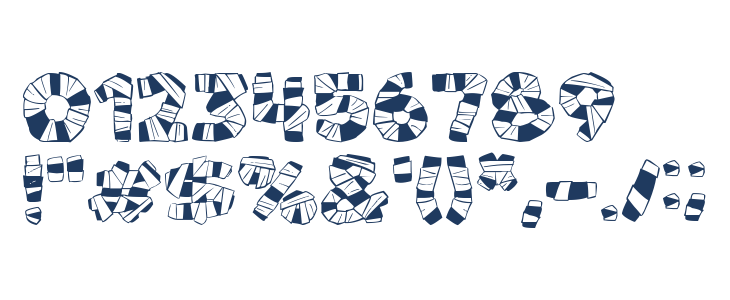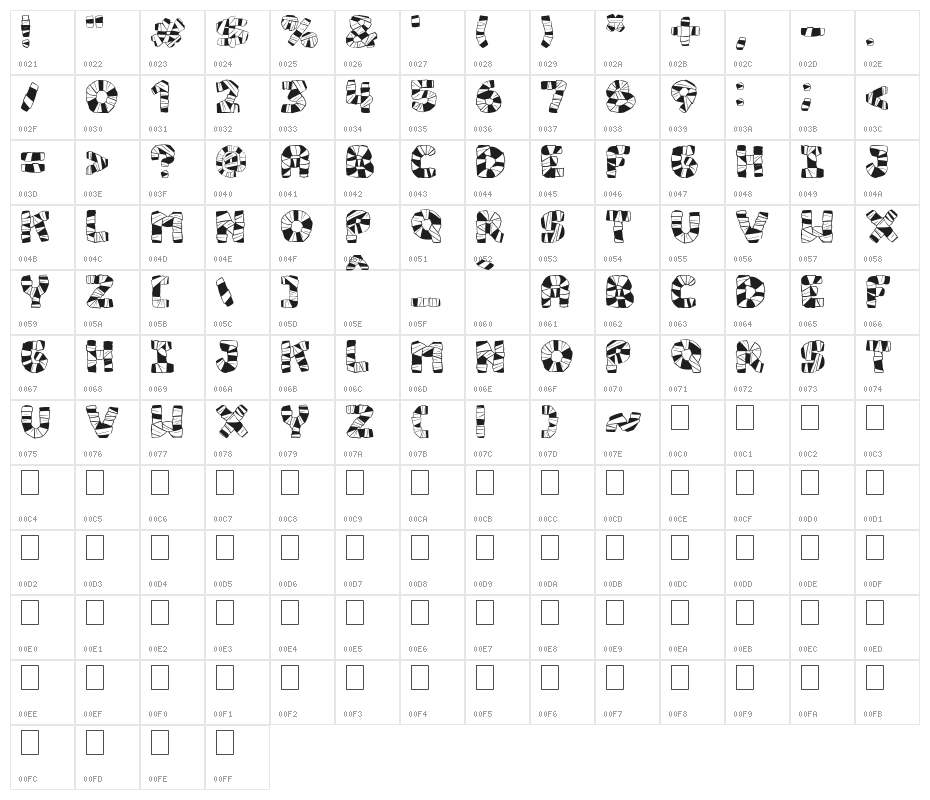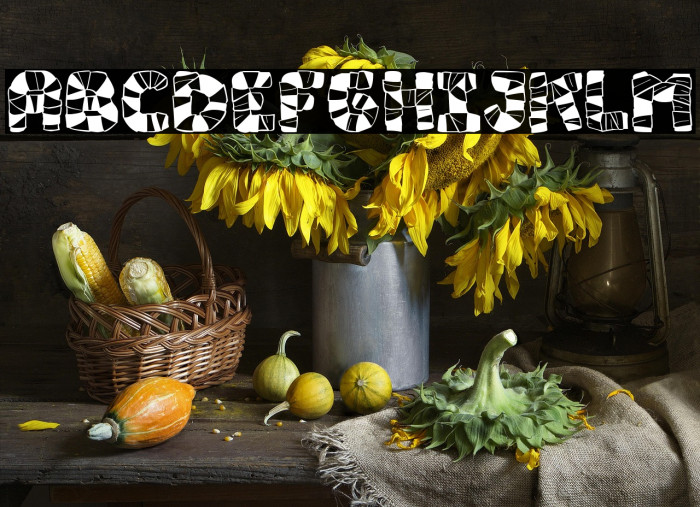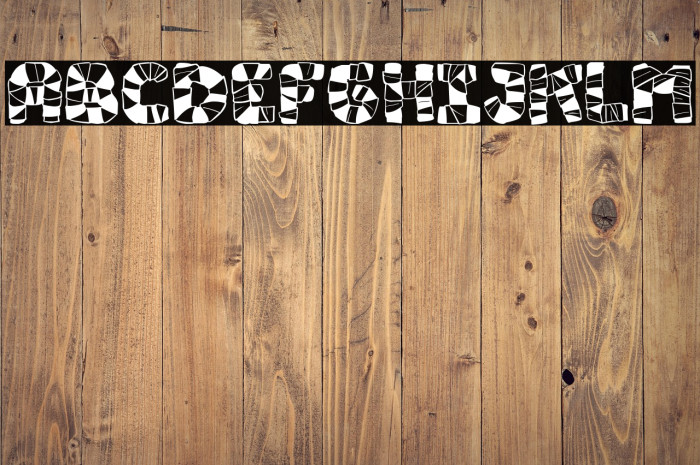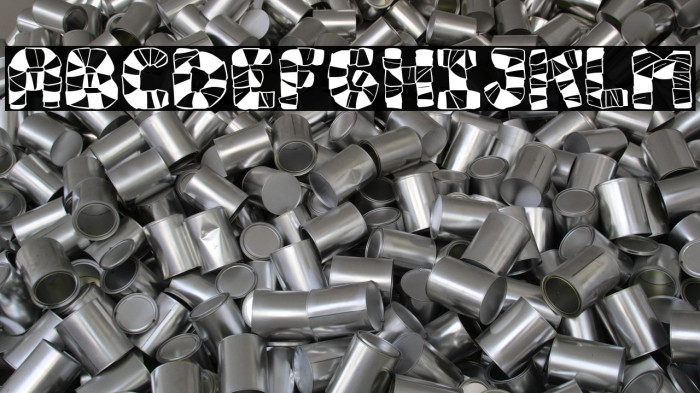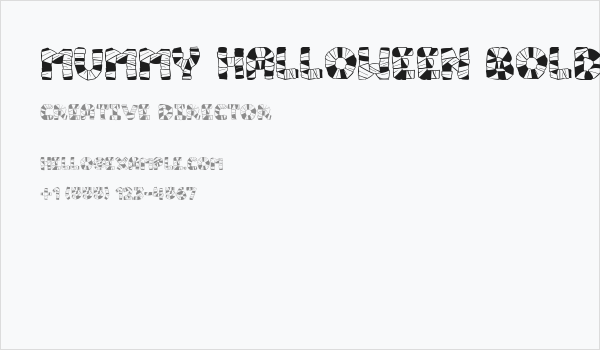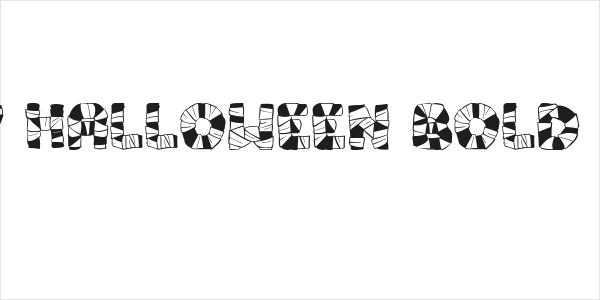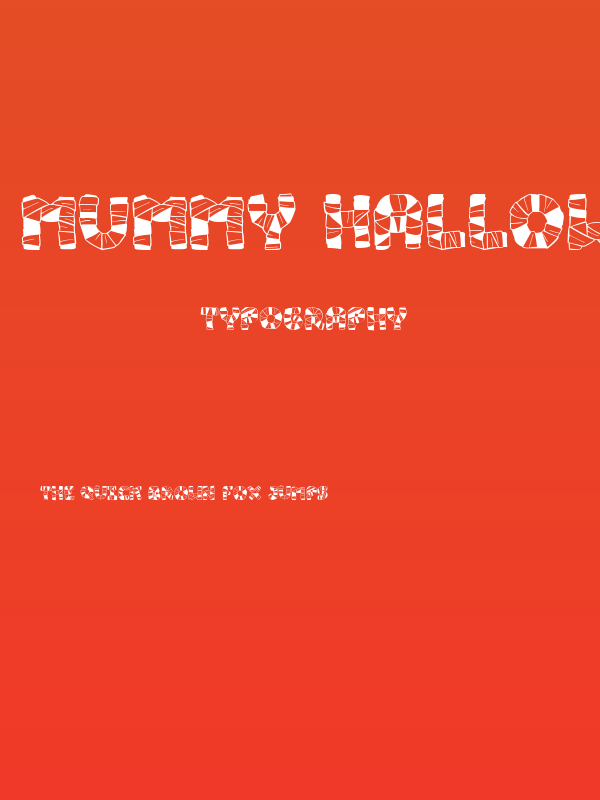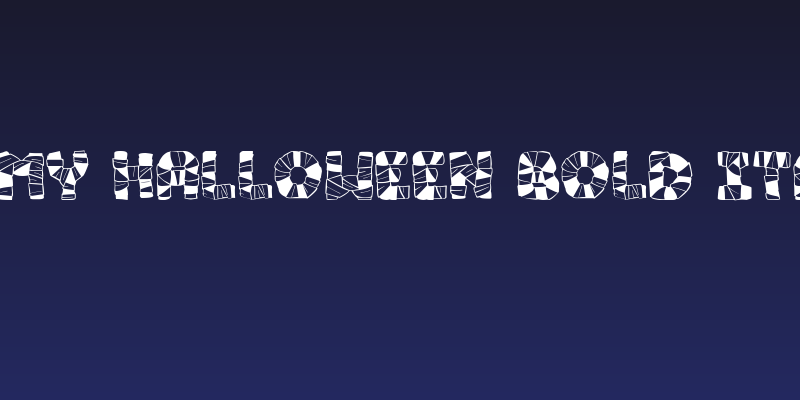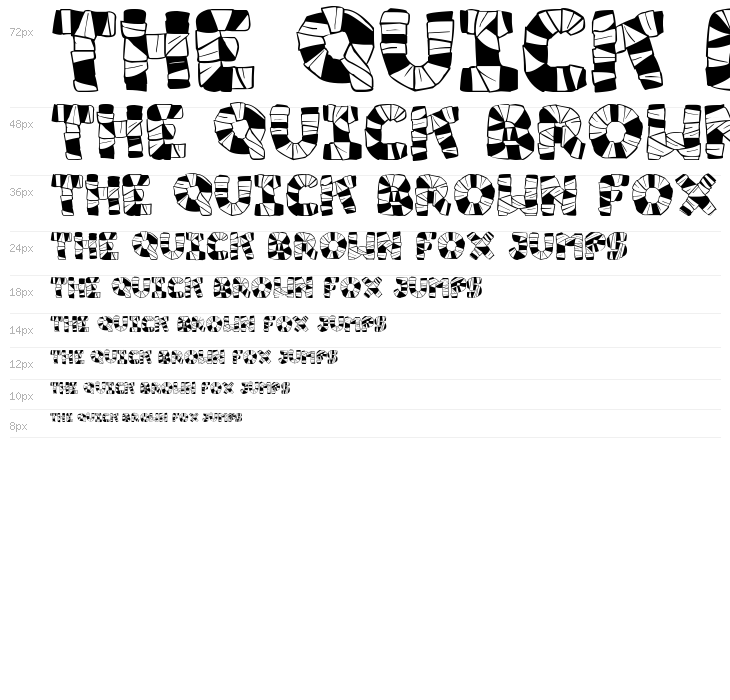
Mummy Halloween Bold Italic Font
Mummy Halloween Bold Italic Description
This font features a playful and spooky design, reminiscent of Halloween themes. Each character is wrapped in bandage-like patterns, creating a textured and layered appearance. The bold and italicized style adds a dynamic and eye-catching effect, making it perfect for festive and themed projects. The font maintains a consistent width across characters, ensuring readability while still embracing its decorative nature. The unique design elements make it stand out, ideal for capturing attention in creative and thematic contexts.
| Use Case | Headlines, Logos, Themed Events |
| Proposed Projects | Ideal for Halloween invitations, themed posters, party decorations, and creative branding. |